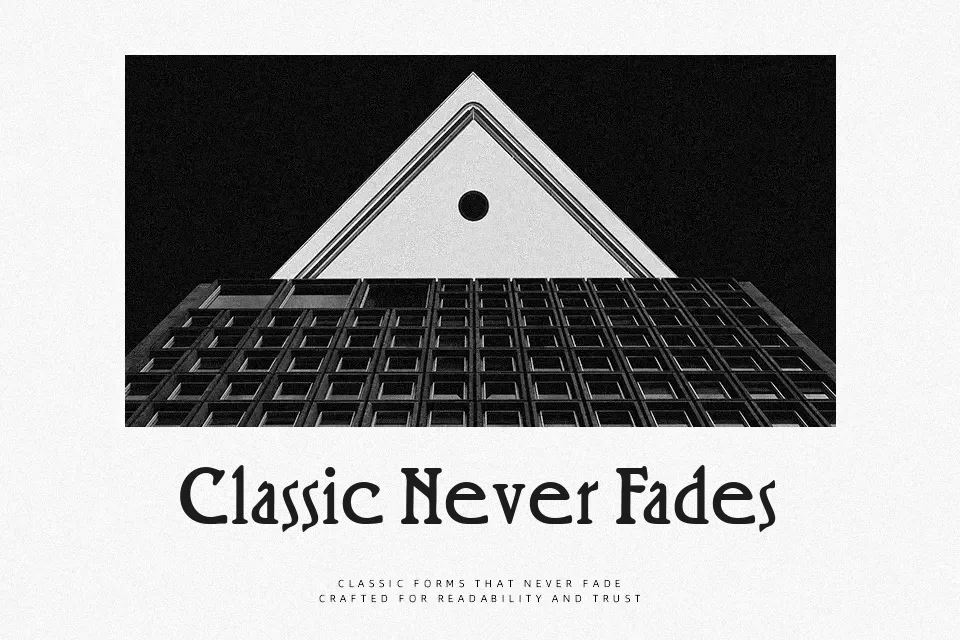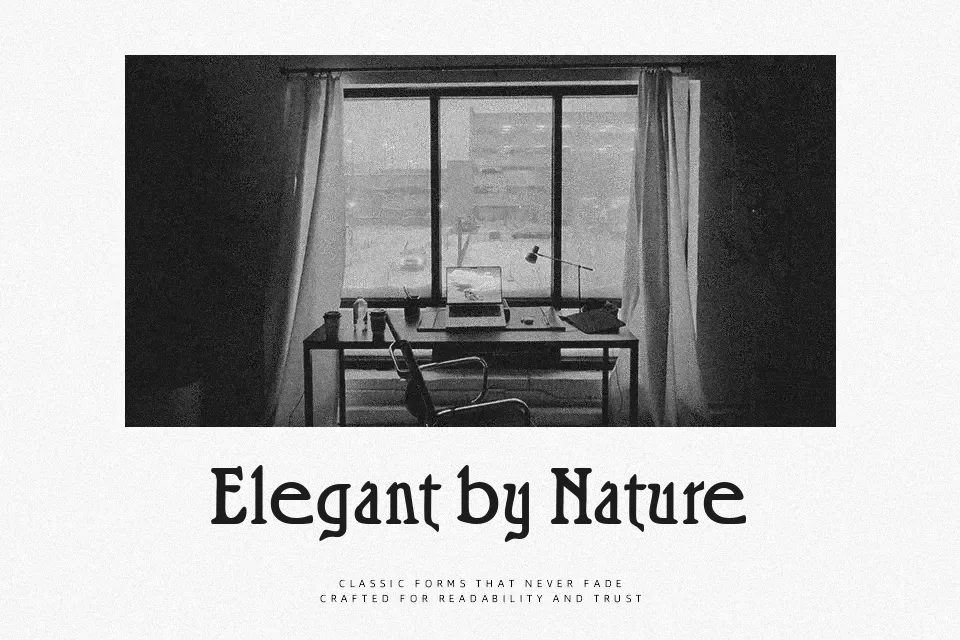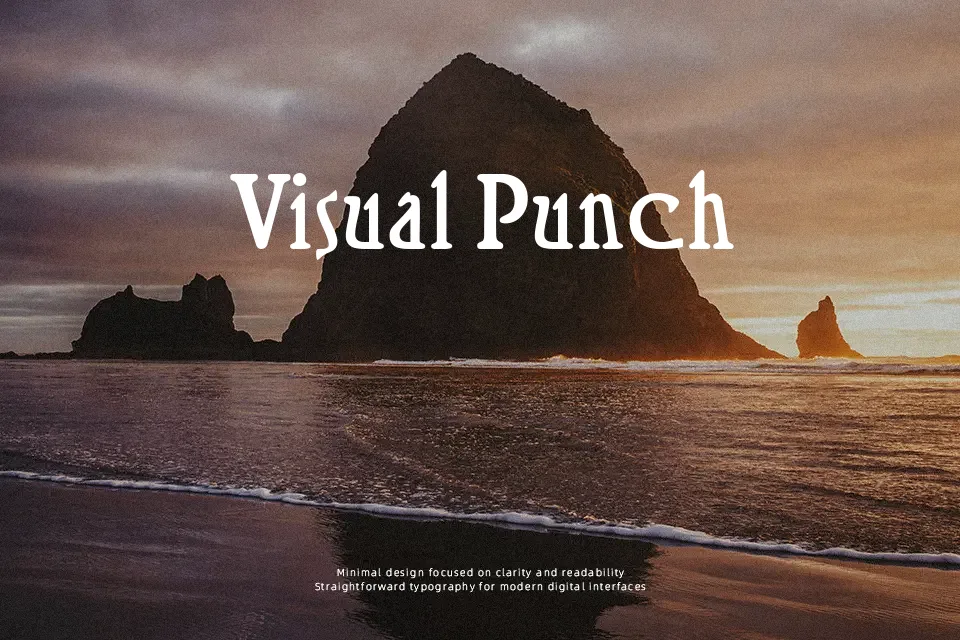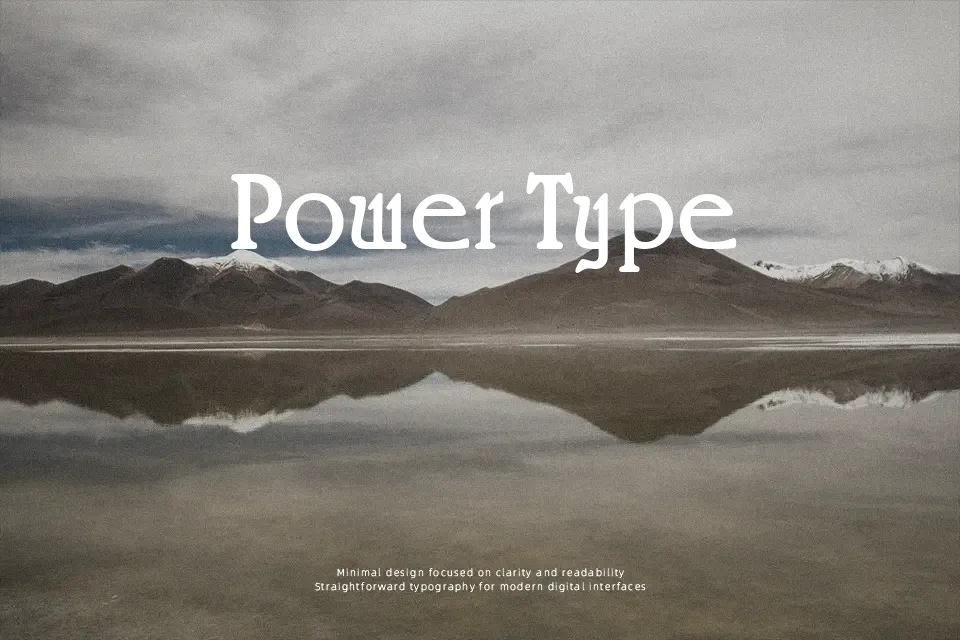
Roskell Font
Designed by Dieter Steffmann
Roskell Font delivers a striking visual impact through its heavily stylized serif structure and robust proportions. The letterforms display bold, solid strokes paired with distinctive decorative flourishes that give the typeface a decidedly vintage appearance. Its tight, balanced spacing ensures that words remain cohesive and visually unified in prominent headlines. The ornate character details work beautifully for historical movie posters, nostalgic product packaging, and classical event branding. However, these same decorative elements reduce continuous reading comfort, making it less suitable for dense editorial layouts. The prominent serifs and high-contrast styling perform best when showcased at larger sizes, where its classical charm can be fully appreciated without compromising overall legibility.
vintage product packaging
historical movie posters
nostalgic event branding
large display headlines
continuous reading
Perfect for film, headline, and packaging, with a bold and decorative style.